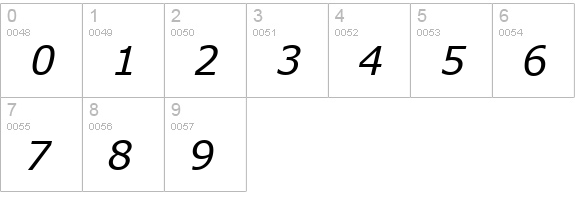
MS Reference Sans Serif Italic Font Details
MS Reference Sans Serif Italic is a distinctive, italic variant in the MS typeface family \xE2\x80\x94 well suited to design and typography projects.
MS Reference Sans Serif Italic is a modern and sleek typeface that exudes elegance and sophistication. With its stylish slanted design, this font adds a touch of class to any project or design. The italicized version of the MS Reference Sans Serif font provides a dynamic and eye-catching aesthetic, perfect for creating a sense of movement and emphasis in your text. What makes MS Reference Sans Serif Italic even more appealing is that it is available for free download at FontsMarket.com. This means you can easily access and use this versatile font in your designs without any cost. Whether you are working on a professional presentation, a creative project, or simply looking to elevate your written content, MS Reference Sans Serif Italic is a fantastic choice that will help you stand out. Don't miss out on this opportunity to enhance your designs with this elegant and free font.